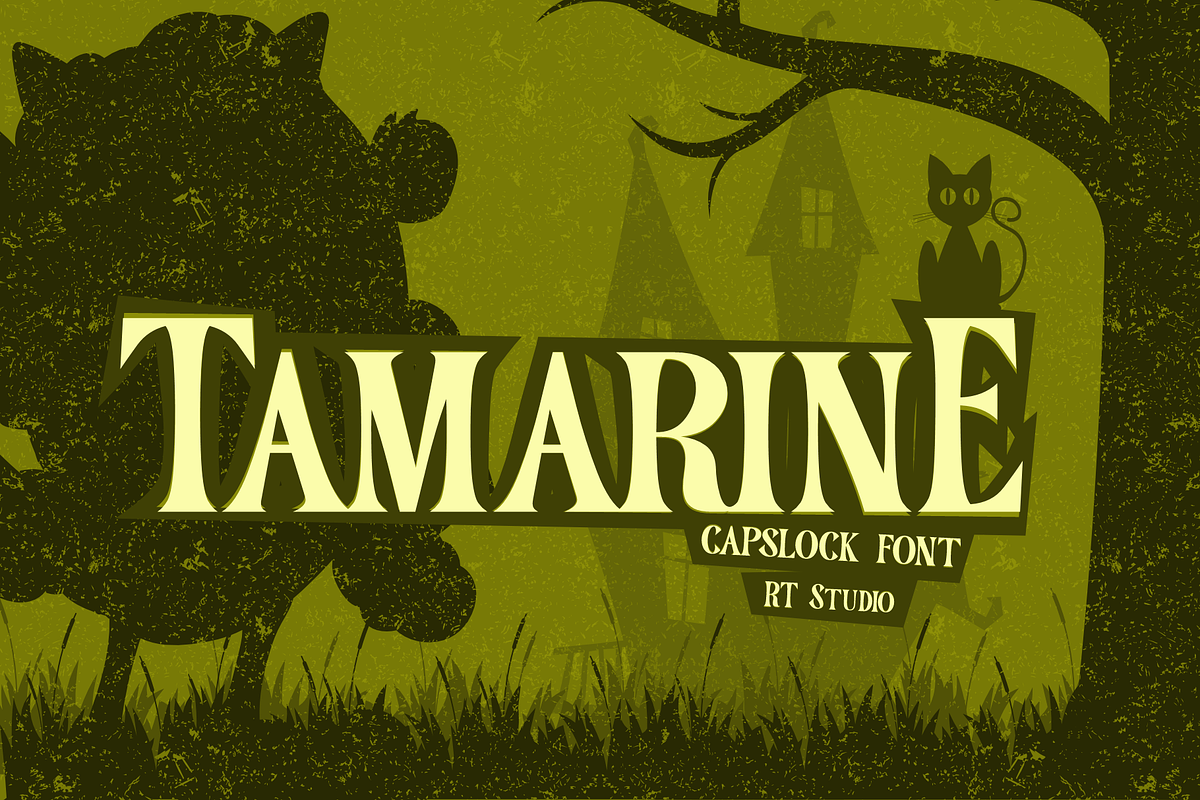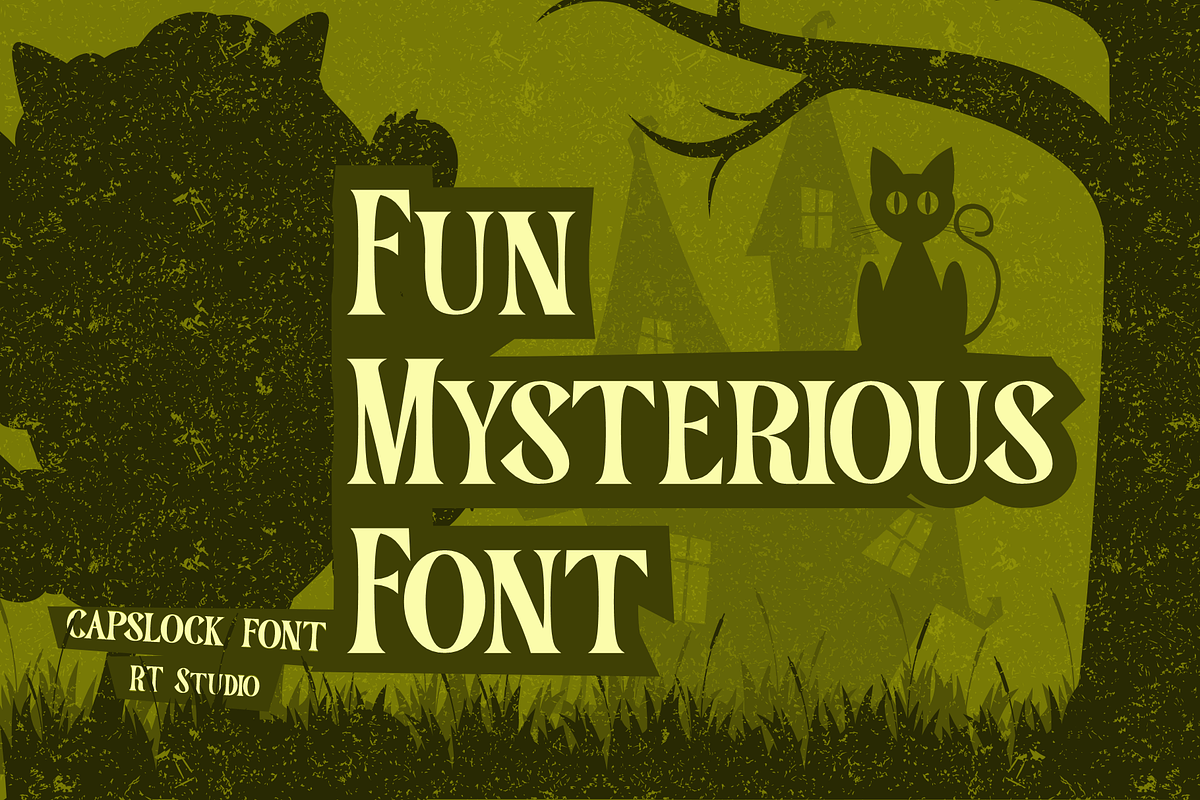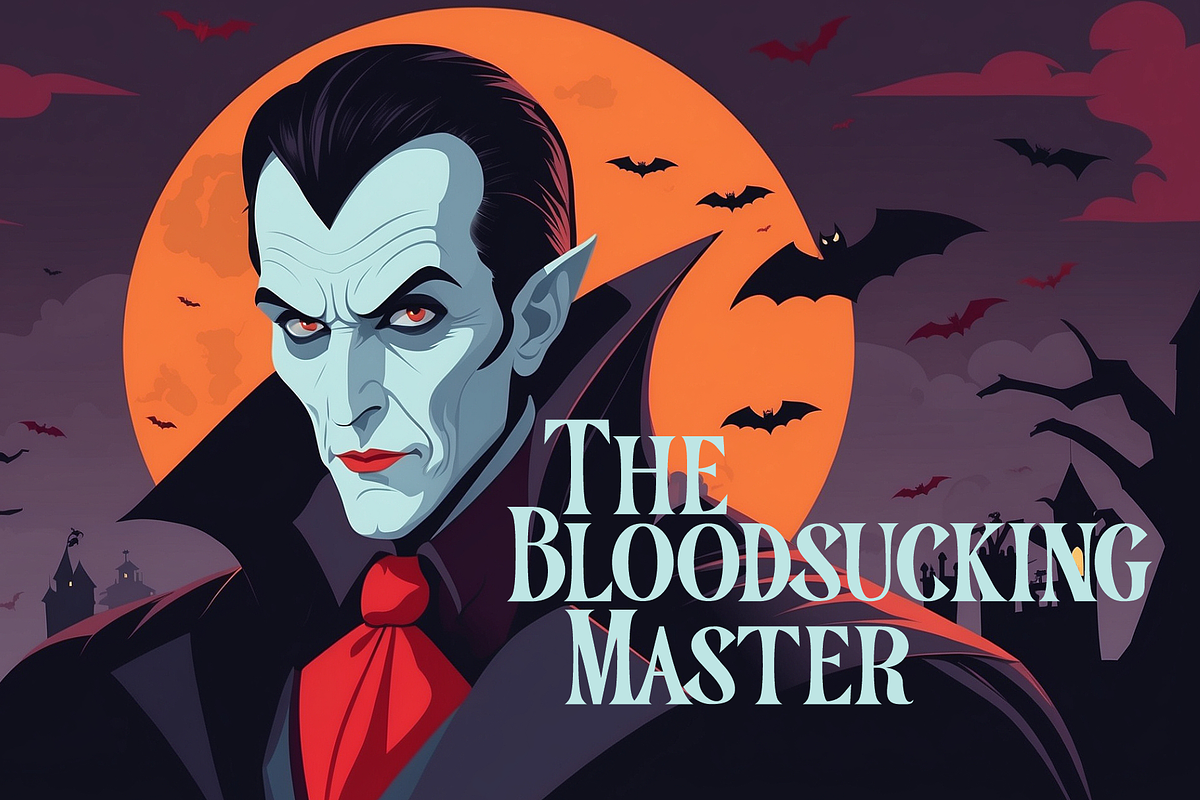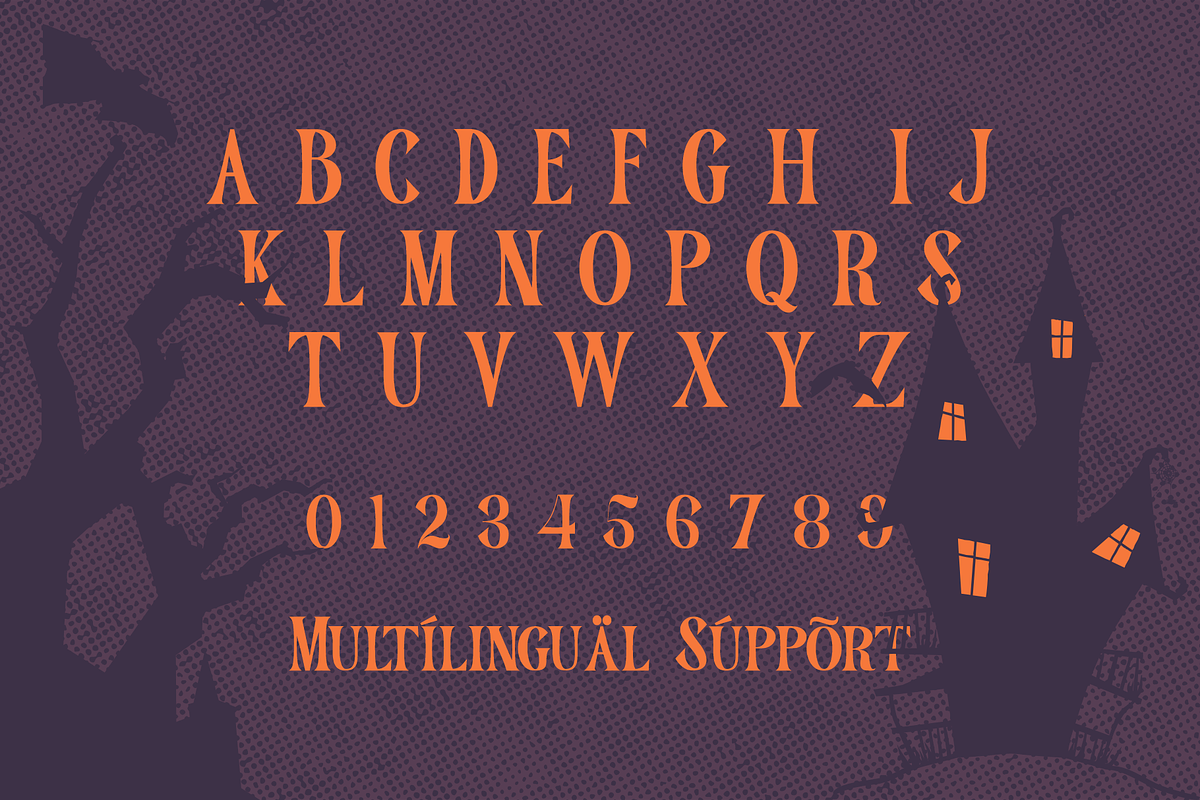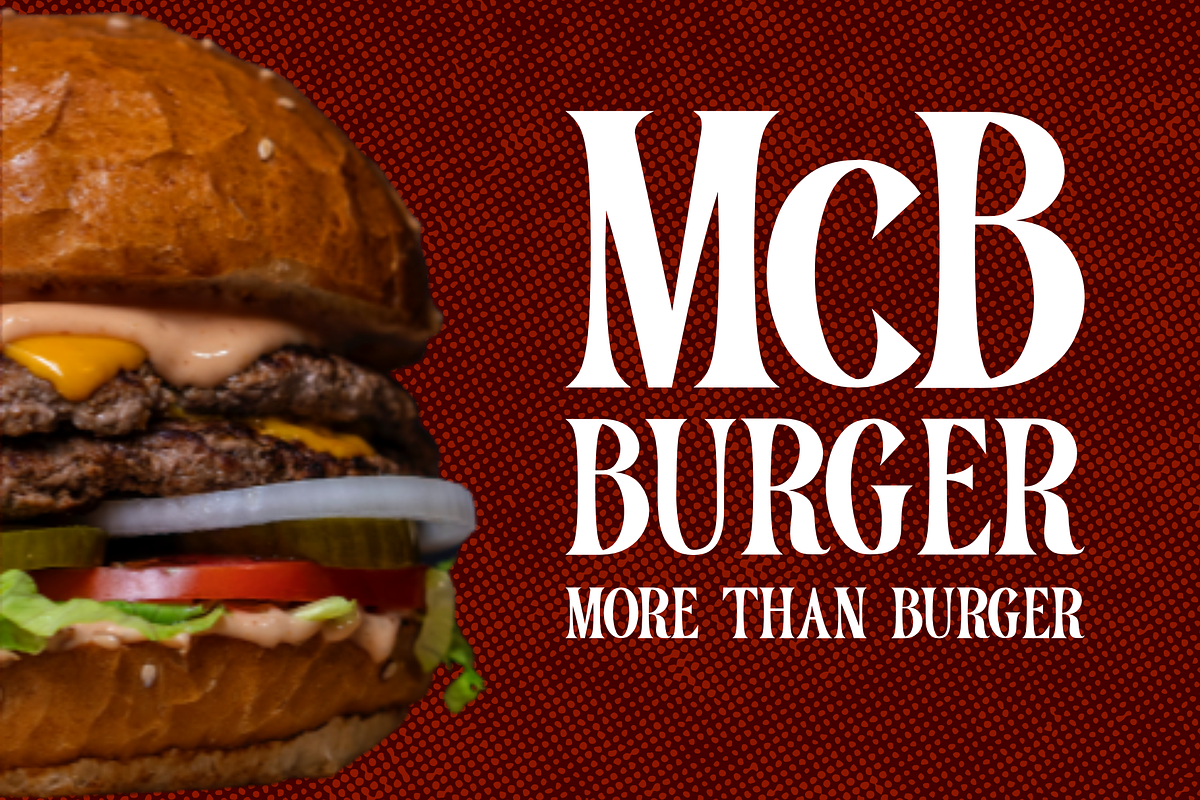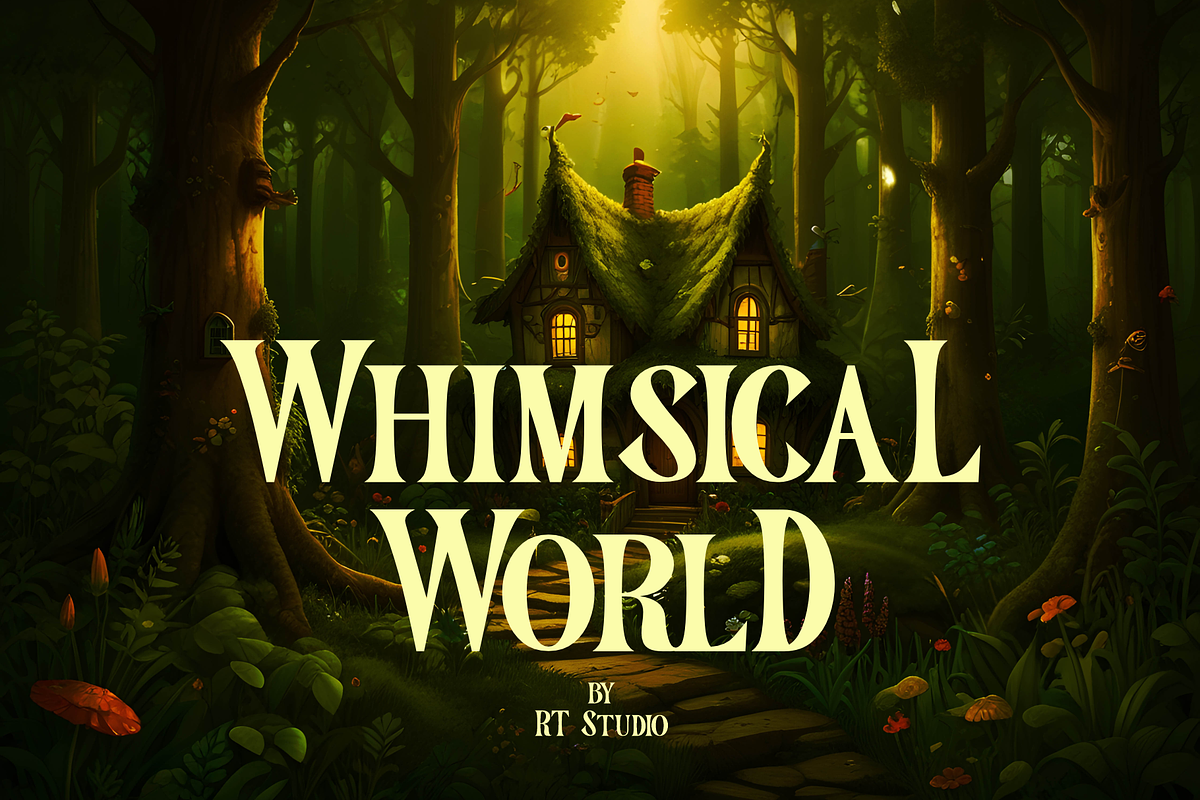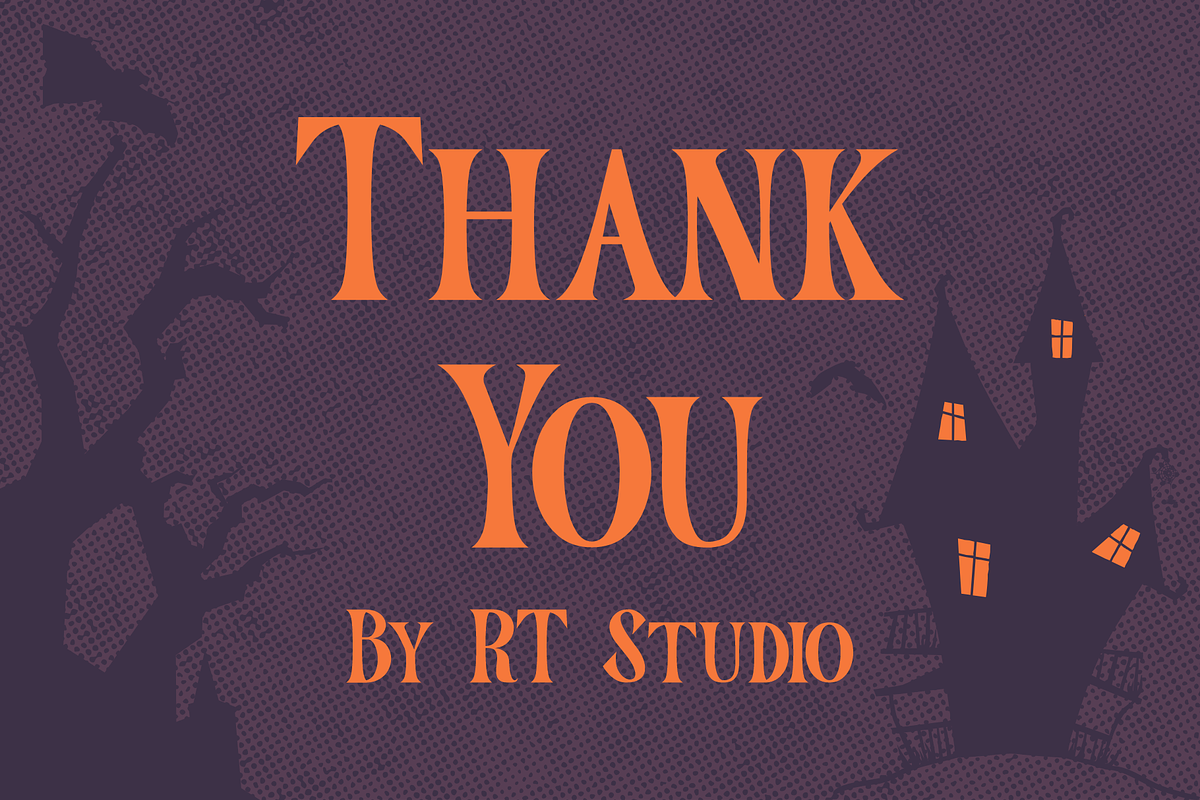
Tamarine: A Classic Cartoon Nostalgi
Tamarine: A Capslock Font with Classic Cartoon Nostalgia Introducing Tamarine, a captivating capslock font, inspired by the magic of classic cartoon film posters. This font breathes new life into the charm of animation's golden era, reimagined as modern, enchanting typography.
Key Features: Retro-styled serif font with a contemporary twist Exclusively in uppercase format, channeling the energy and spirit of classic cartoons Sharp and dynamic serifs, creating a balance between elegance and playfulness Unique character proportions, reminiscent of vintage animation film poster typography
Tamarine is perfect for: Titles and headlines aiming to evoke nostalgic vibes Retro or vintage-themed product packaging designs Branding for businesses wanting to convey a playful yet classy image Posters for events or festivals celebrating cartoon or classic animation themes
Rooted in the world of classic cartoons, Tamarine offers a unique way to bring the warmth and joy of the past into modern designs. This font is ideal for projects seeking to blend nostalgia with contemporary freshness. Let Tamarine sprinkle the magical touch of classic cartoons into your designs, creating work that not only catches the eye but also tugs at the heartstrings of your audience.